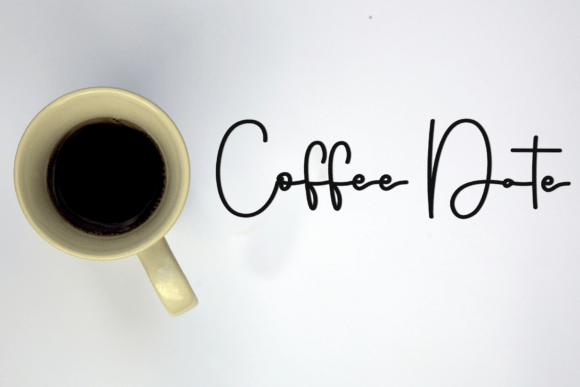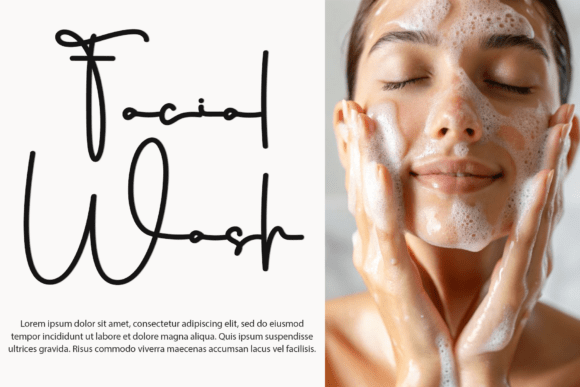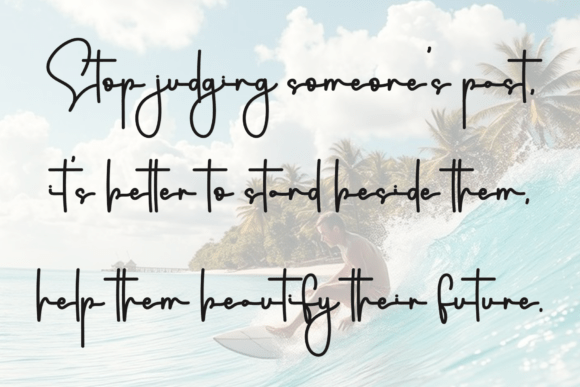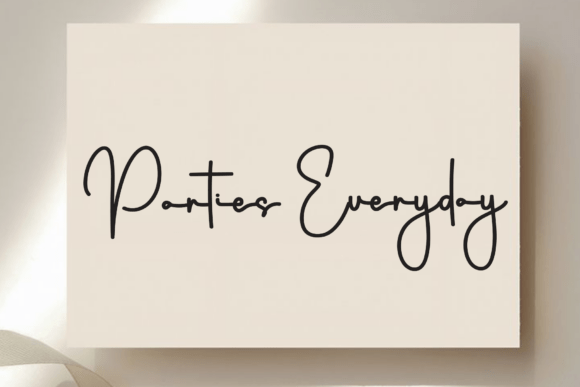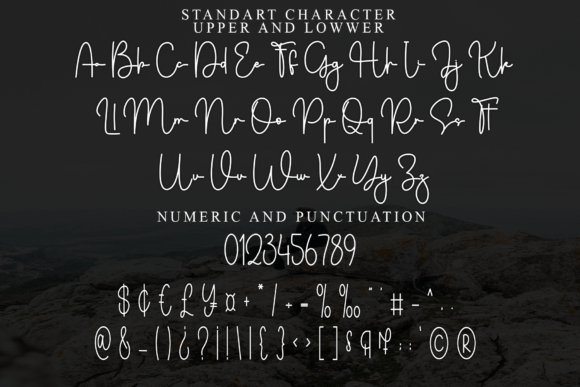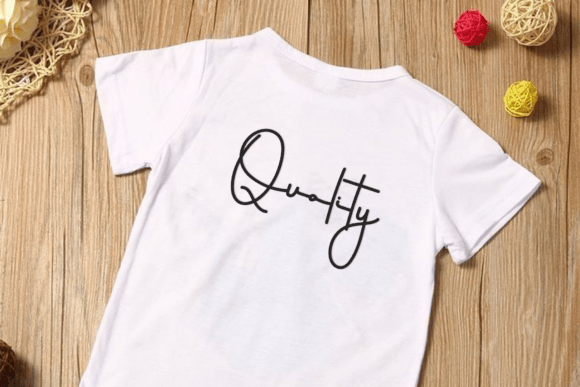
Introduction to Playing Paragliding Font Font
Fonts play a crucial role in design, and the Playing Paragliding Font font is a typeface that brings both character and versatility to any project. Whether you’re working on a branding project, a website, or a print design, the Playing Paragliding Font font offers a unique style that can elevate your work.
Playing Paragliding is a beautiful and eye-catching font designed with a soft, unique touch.
Its distinctive strokes give it a special character, making it meaningful and versatile for future use With various characters, itβs perfect for design projects, crafts, and other creative works.
Key Features of Playing Paragliding Font Font
Why Choose Playing Paragliding Font Font?
The Playing Paragliding Font font is more than just a typeface β it’s a design tool that helps you communicate your message with style and clarity. Its unique character set and versatile design make it suitable for a wide range of applications, from elegant invitations to bold headlines.
With its carefully crafted letterforms and balanced proportions, the Playing Paragliding Font font ensures readability and visual appeal across all mediums.
What makes Playing Paragliding Font font special?
The Playing Paragliding Font font stands out with its unique design, exceptional readability, and versatility across various design applications.